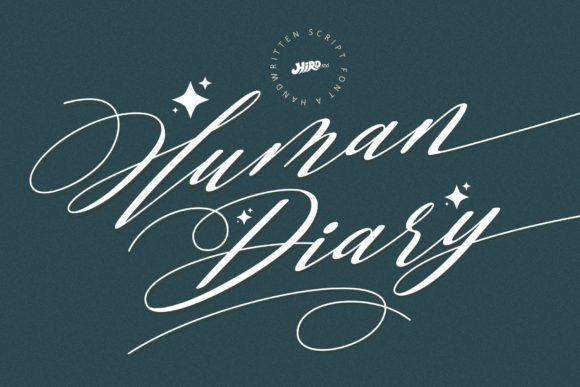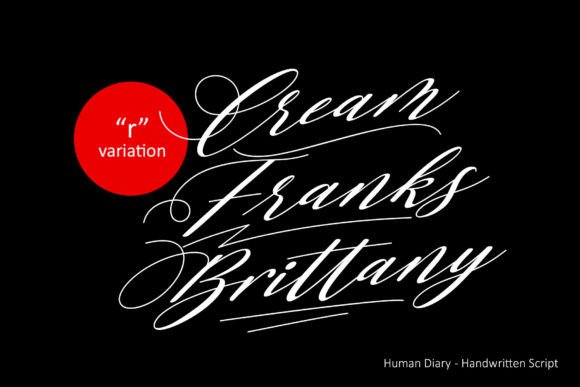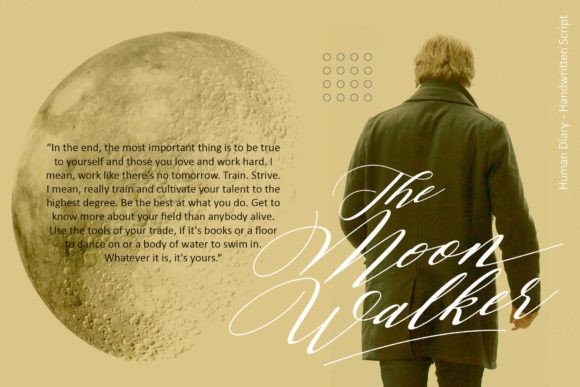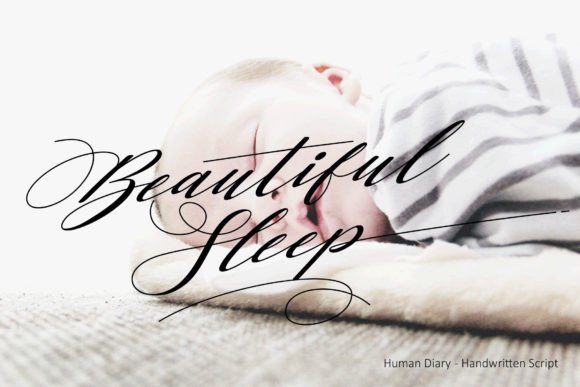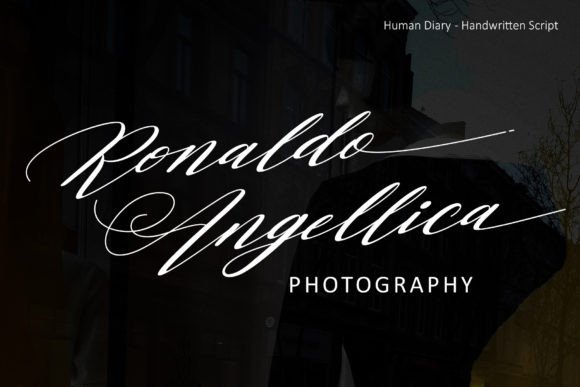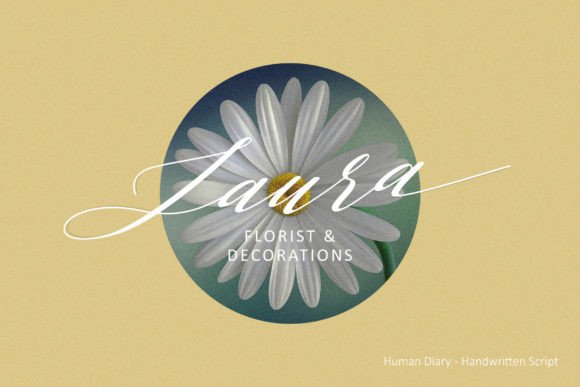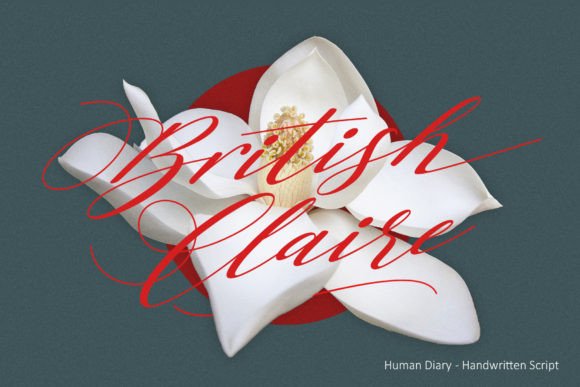
The Perfect Handwritten Touch: Unveiling the Human Diary Font
As a designer, have you ever been stuck on a project, searching for that perfect handwritten touch to make it truly stand out? You’re not alone. We’ve all been there, scrolling through font libraries, trying to find that elusive font that captures the essence of elegance and sophistication.
Enter the Human Diary Font, a stunning, casual, and dynamic handwritten font designed to elevate your projects to the next level. With its versatility in use, from wedding invitations to branding and logotypes, this font is a game-changer for designers looking to add a touch of warmth and personality to their work. Whether you’re working on a magazine, photography project, or anything in between, the Human Diary Font is the perfect solution.
What makes the Human Diary Font truly valuable is its ease of use, thanks to its PUA encoding, which allows designers to access all the glyphs and swashes with ease. This means you can focus on creating beautiful, unique designs without the hassle of complicated font manipulation.
Key Features of Human Diary Font
- Font Family: Human Diary is a script font designed to resemble handwriting.
- Unique Characteristics: Human Diary features a unique, handwritten style with varying line widths, subtle imperfections, and a touch of elegance, making it perfect for creative and personal projects.
Designer Review: Human Diary Font
Overall, I think Human Diary Font has some great qualities, but it also has its limitations. Let’s dive in and see what I mean.
- The Human Diary Font is very expressive and captures a sense of hand-written elegance. This makes it perfect for creative projects that need a personal touch.
- The font has a wide range of styles, from formal to casual, which gives designers a lot of flexibility in their work.
- The characters are well-designed and detailed, making it easy to read and use in various contexts.
- One of the main limitations of Human Diary Font is its lack of consistency in font weight and line spacing. This can make it difficult to use in complex designs.
- The font may not be suitable for large blocks of text, as it can become overwhelming and hard to read.
- Additionally, the font may not be suitable for digital use, as it may not display well on smaller screens.
Overall, I think Human Diary Font is a great choice for designers who want to add a touch of elegance and personality to their work. However, it may not be the best choice for complex designs or large blocks of text. With some careful use and consideration, it can be a valuable addition to any designer’s toolkit.
Tips for Getting the Most Out of Human Diary Font
Use Human Diary Font for creative writing, journaling, or scrapbooking projects. It’s perfect for adding a personal touch to your documents and presentations.
Experiment with different font sizes, colors, and styles to create a unique look.
Human Diary Font is ideal for:
- Creative writing projects
- Journaling and scrapbooking
- Document design and layout